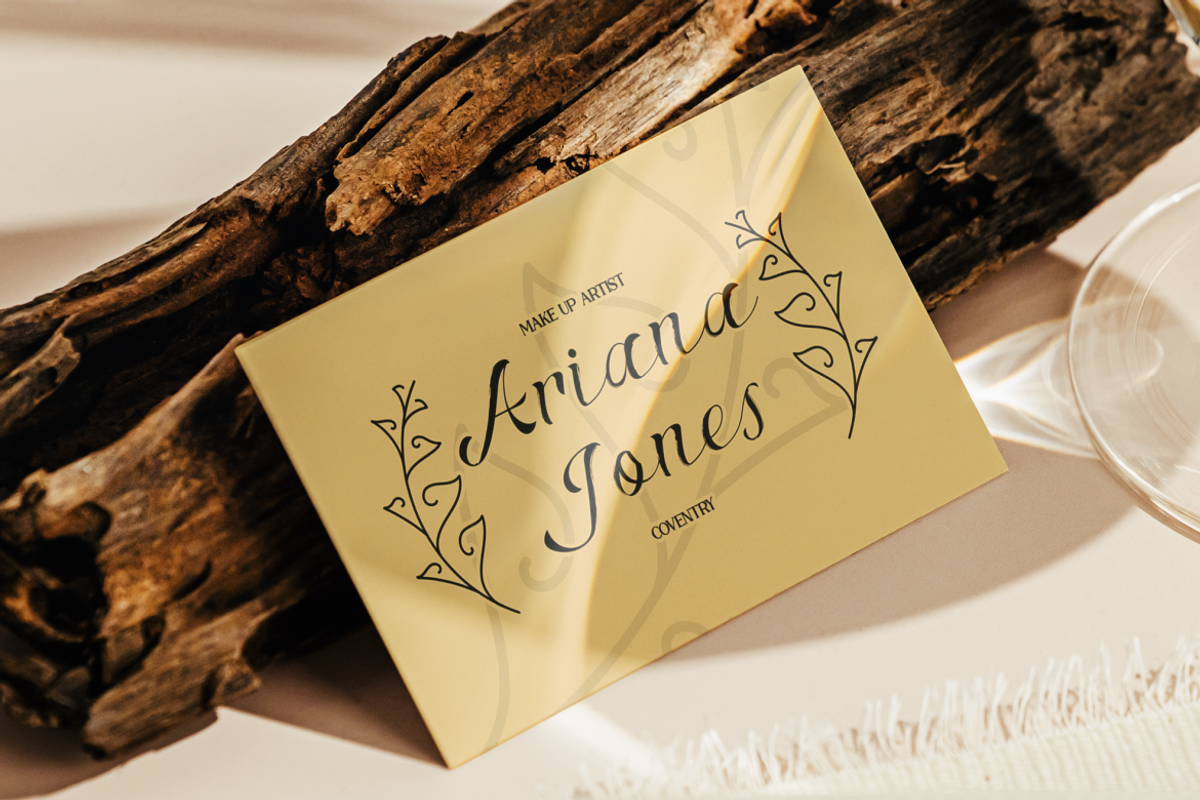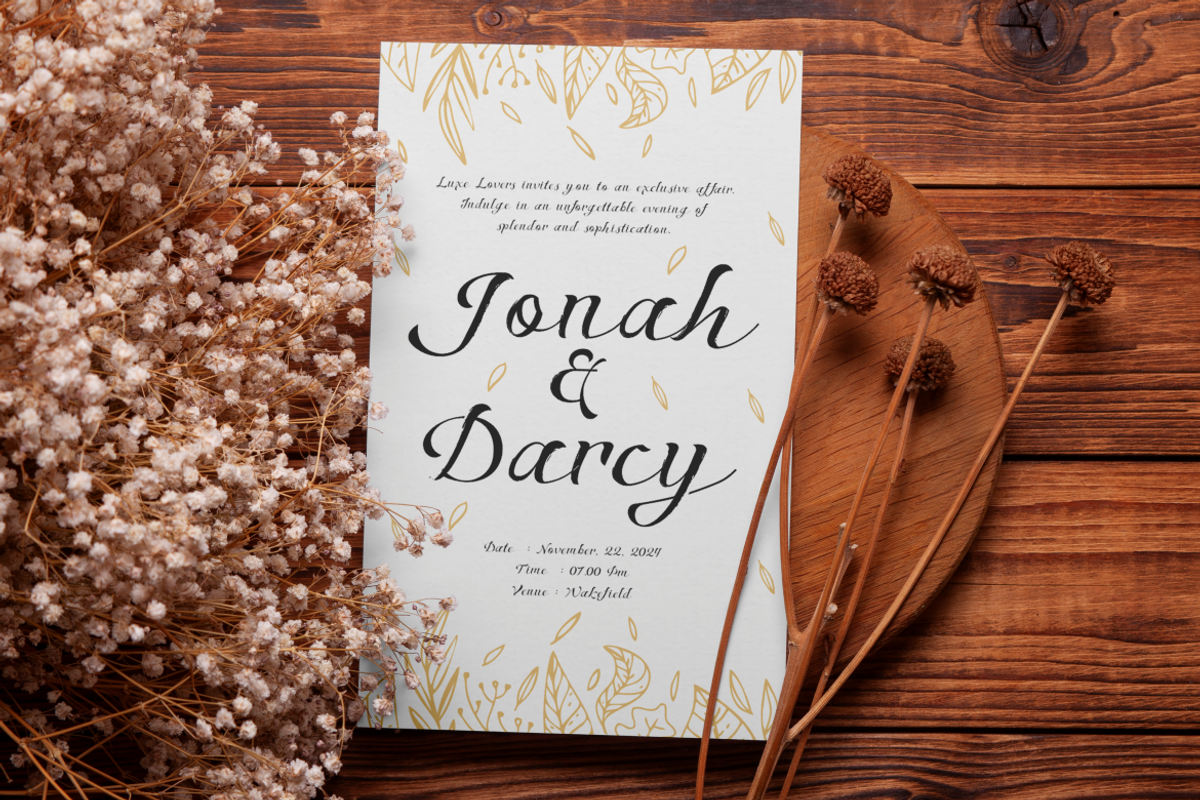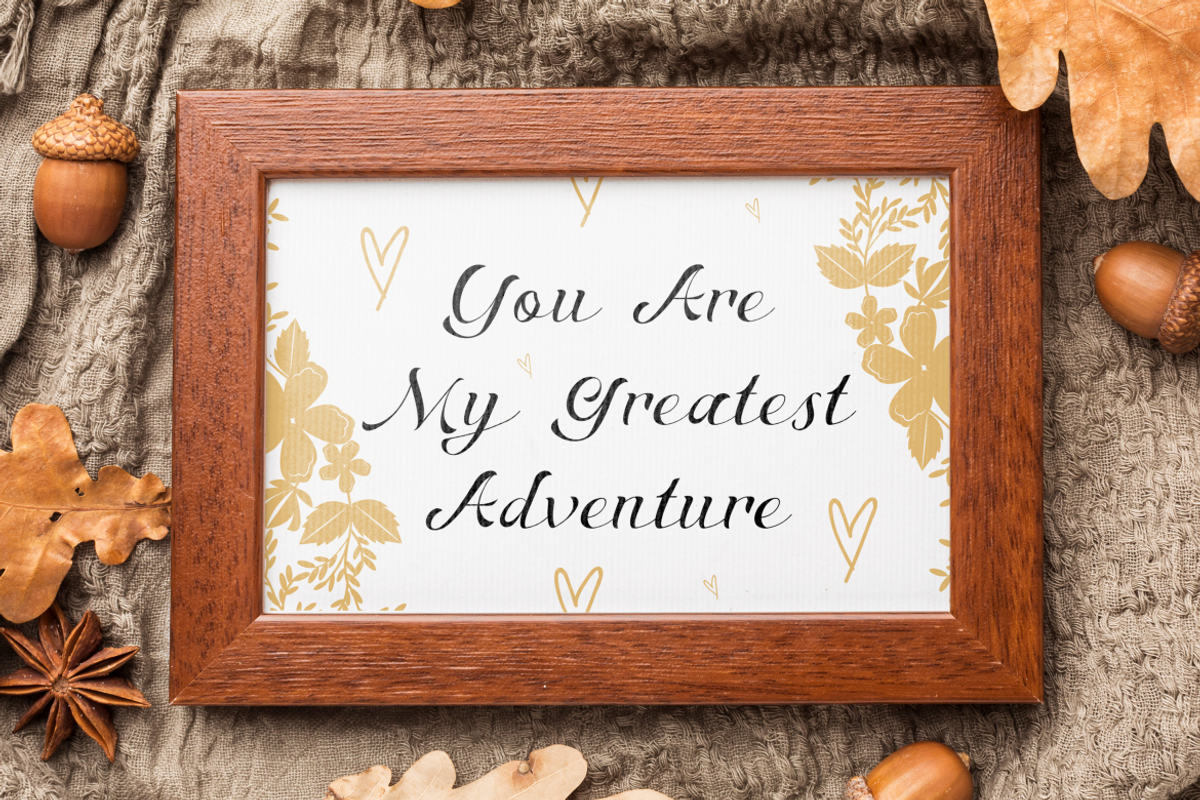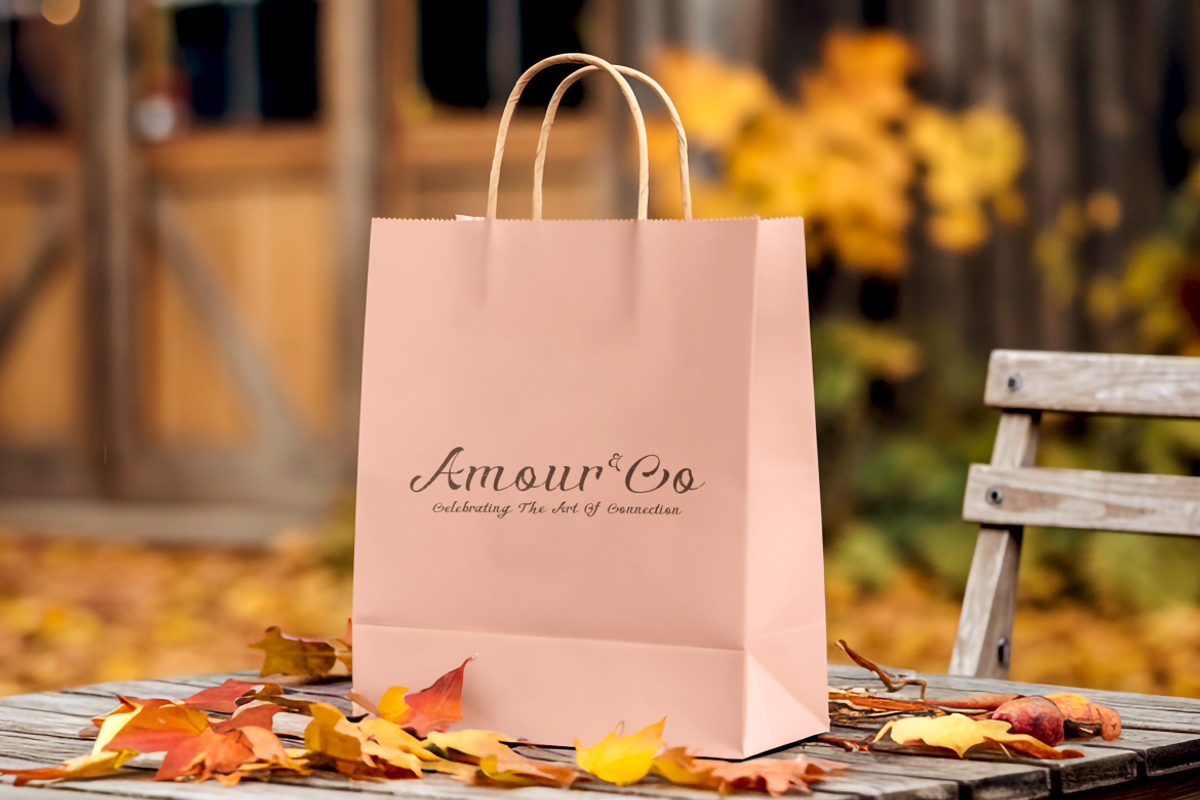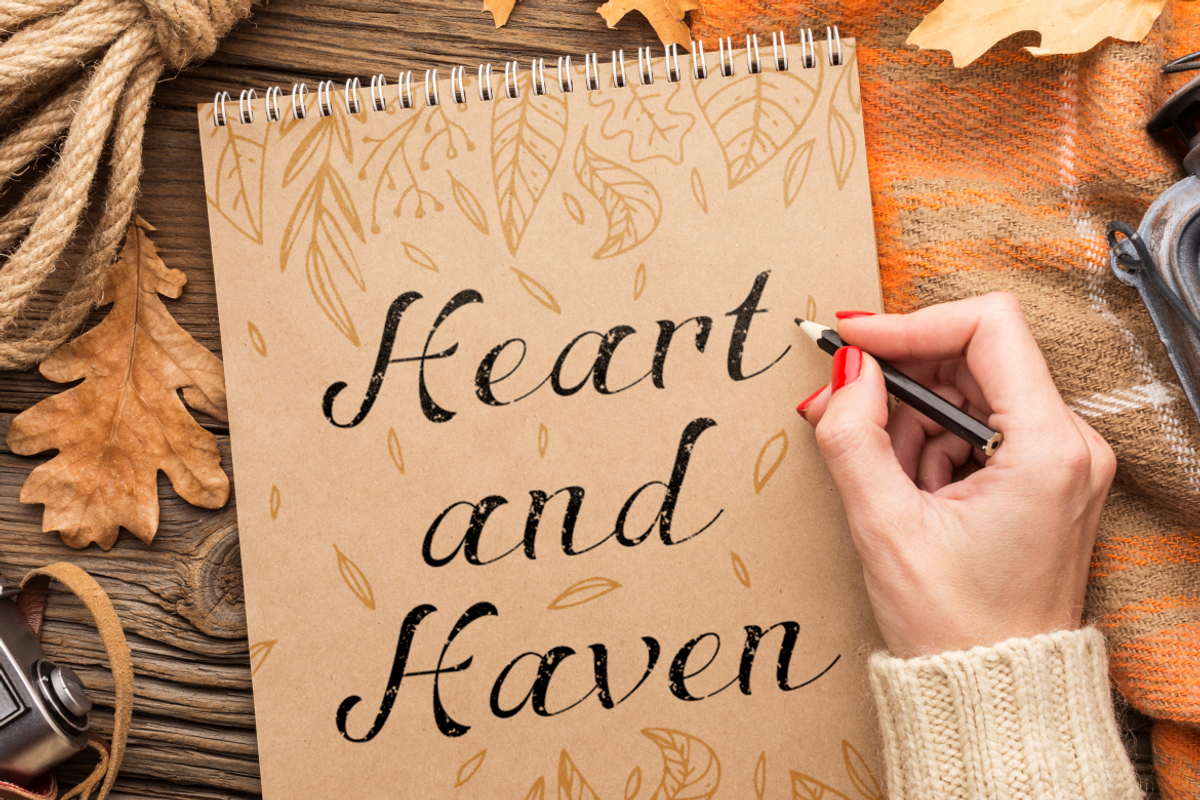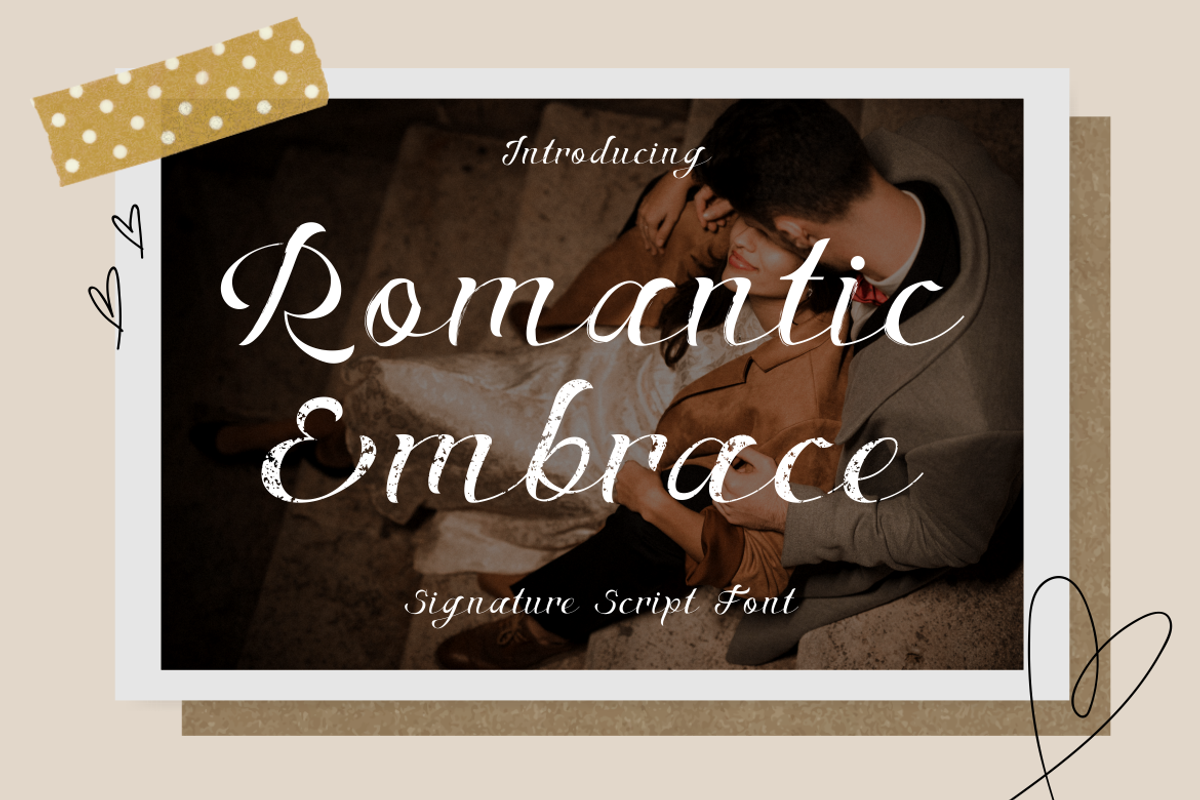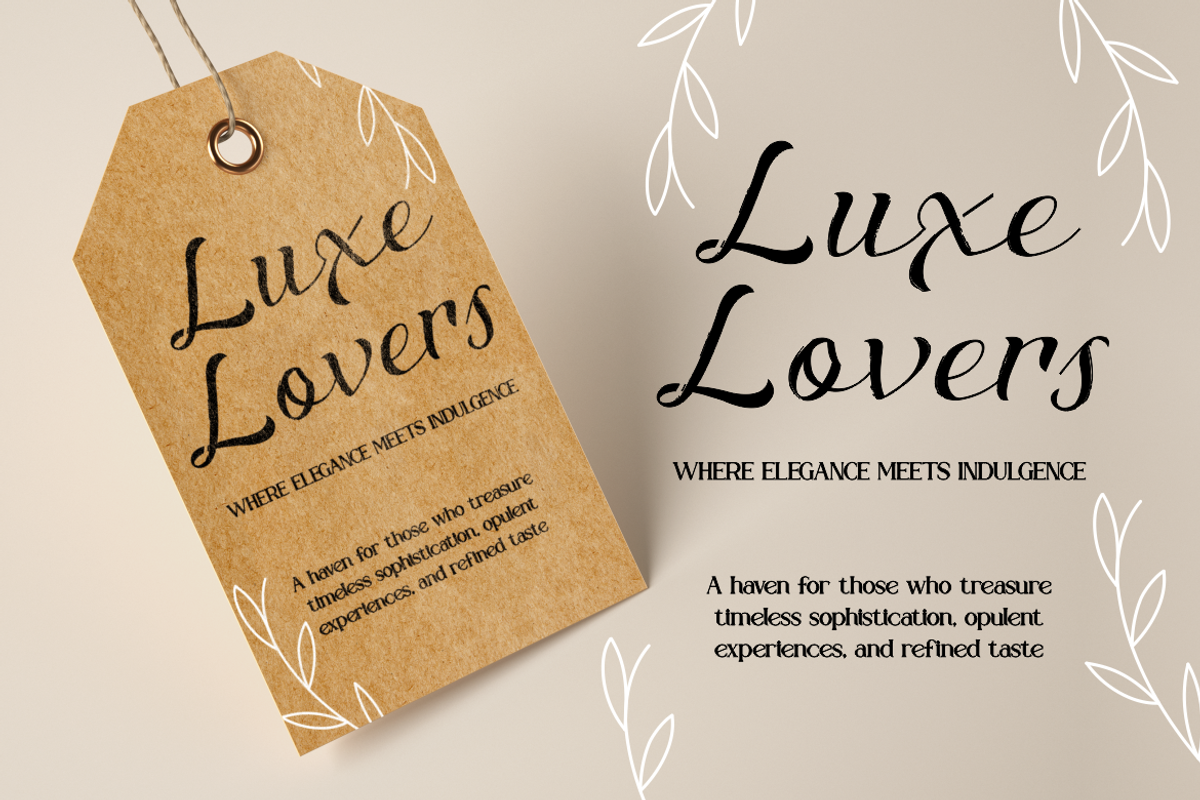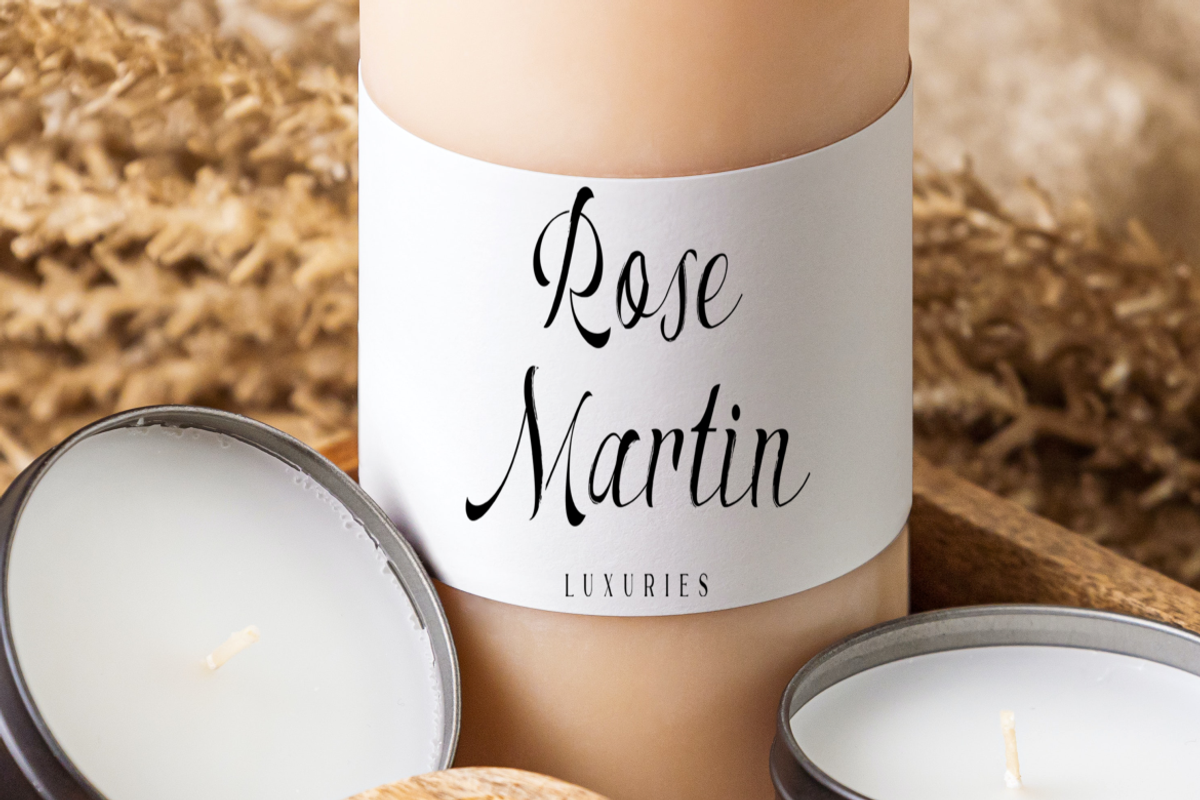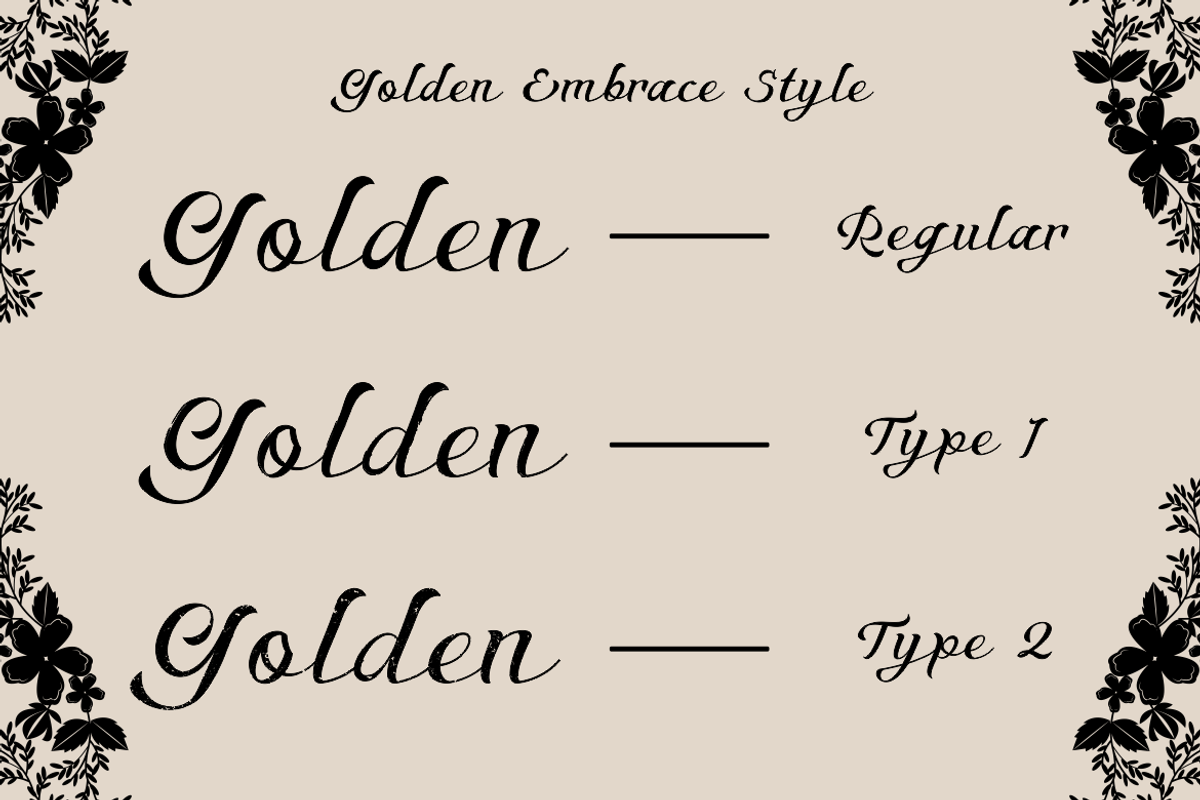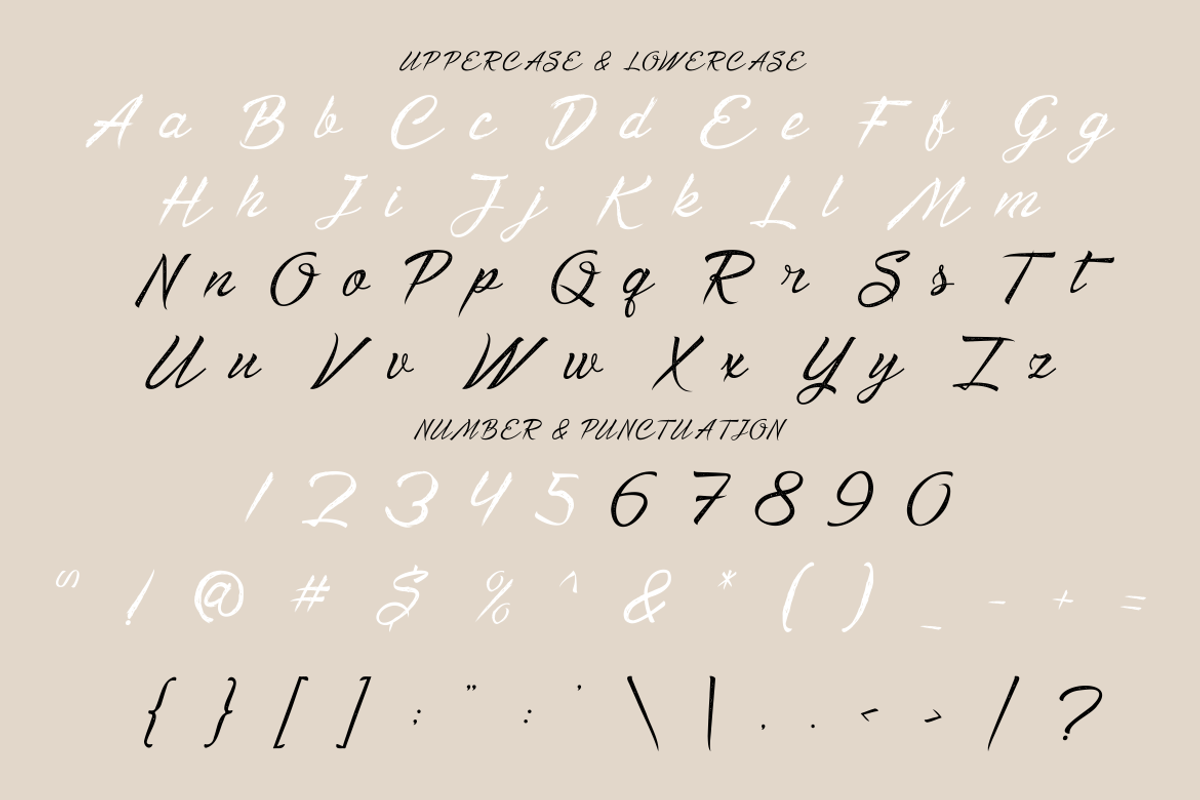
Romantic Embrace - Signature Script
Introducing Romantic Embrace, a luxurious and sophisticated signature script font designed to add timeless elegance and a personal touch to your projects. This font features beautifully flowing, handcrafted strokes with a smooth, natural feel, reminiscent of delicate handwriting. Its unique texture and subtle brush details create an authentic, romantic atmosphere perfect for adding charm and refinement. The sample design blends a warm neutral background with soft sepia tones, enhancing the font’s intimate and nostalgic appeal.
Ideal for branding, wedding invitations, logos, packaging, greeting cards, and more, Romantic Embrace elevates your designs with its blend of elegance and versatility. Whether you are working on high-end product branding or heartfelt stationery, this typeface delivers sophistication with a romantic flair. With its graceful swashes and fluid letterforms, Romantic Embrace is the perfect choice for creating stunning headlines, quotes, or any project that demands a luxurious and artistic aesthetic. Let your creativity flow with this captivating signature script font.